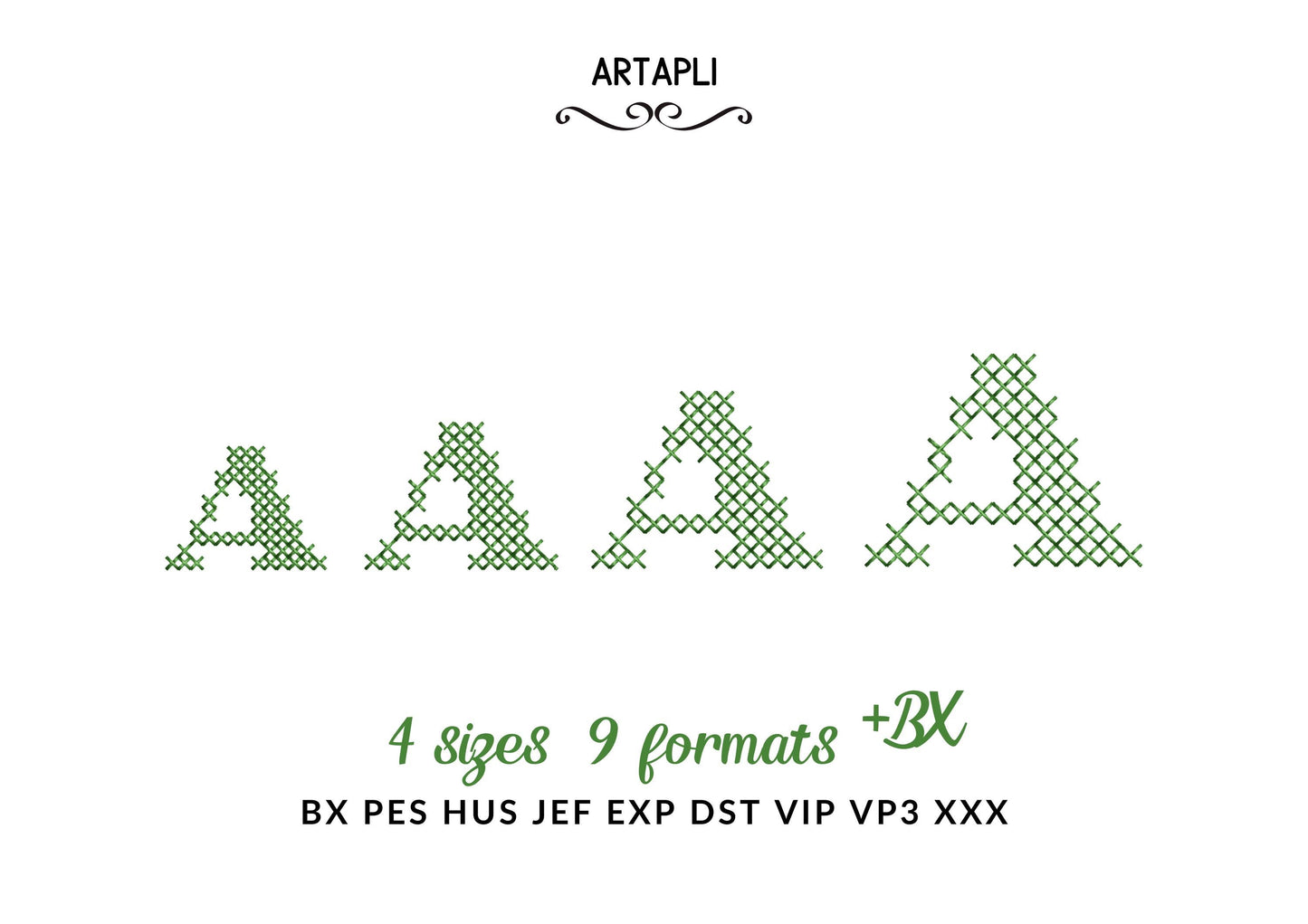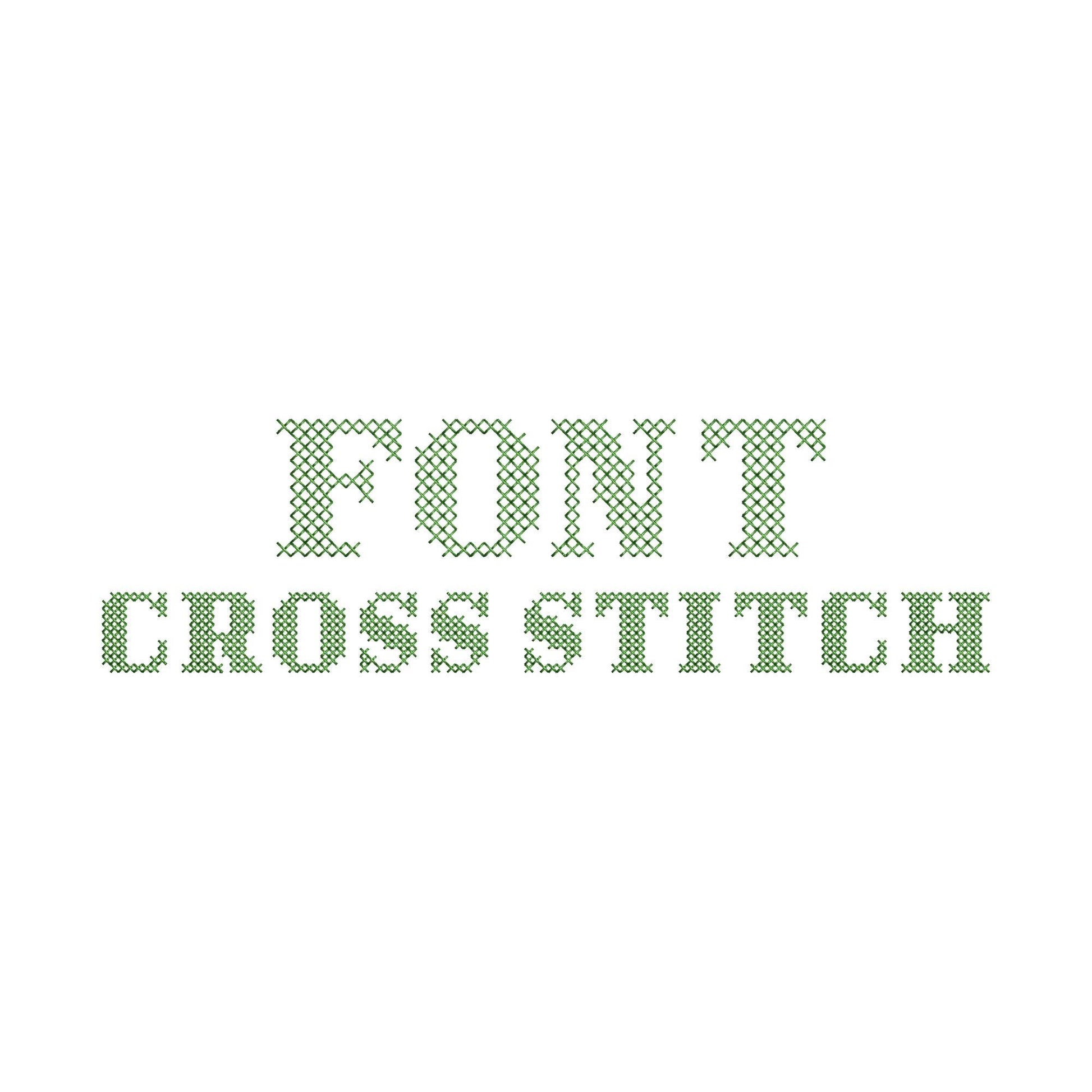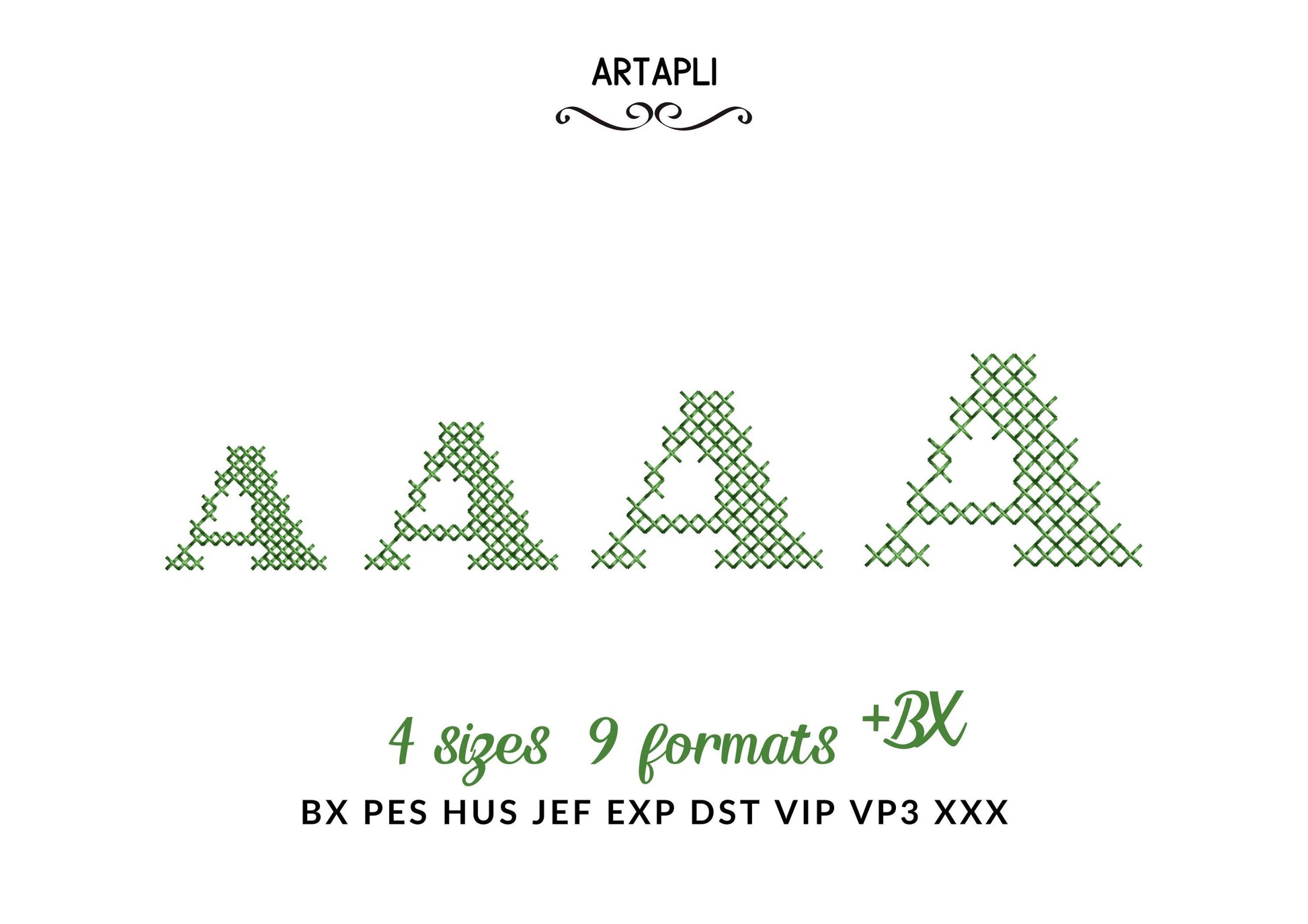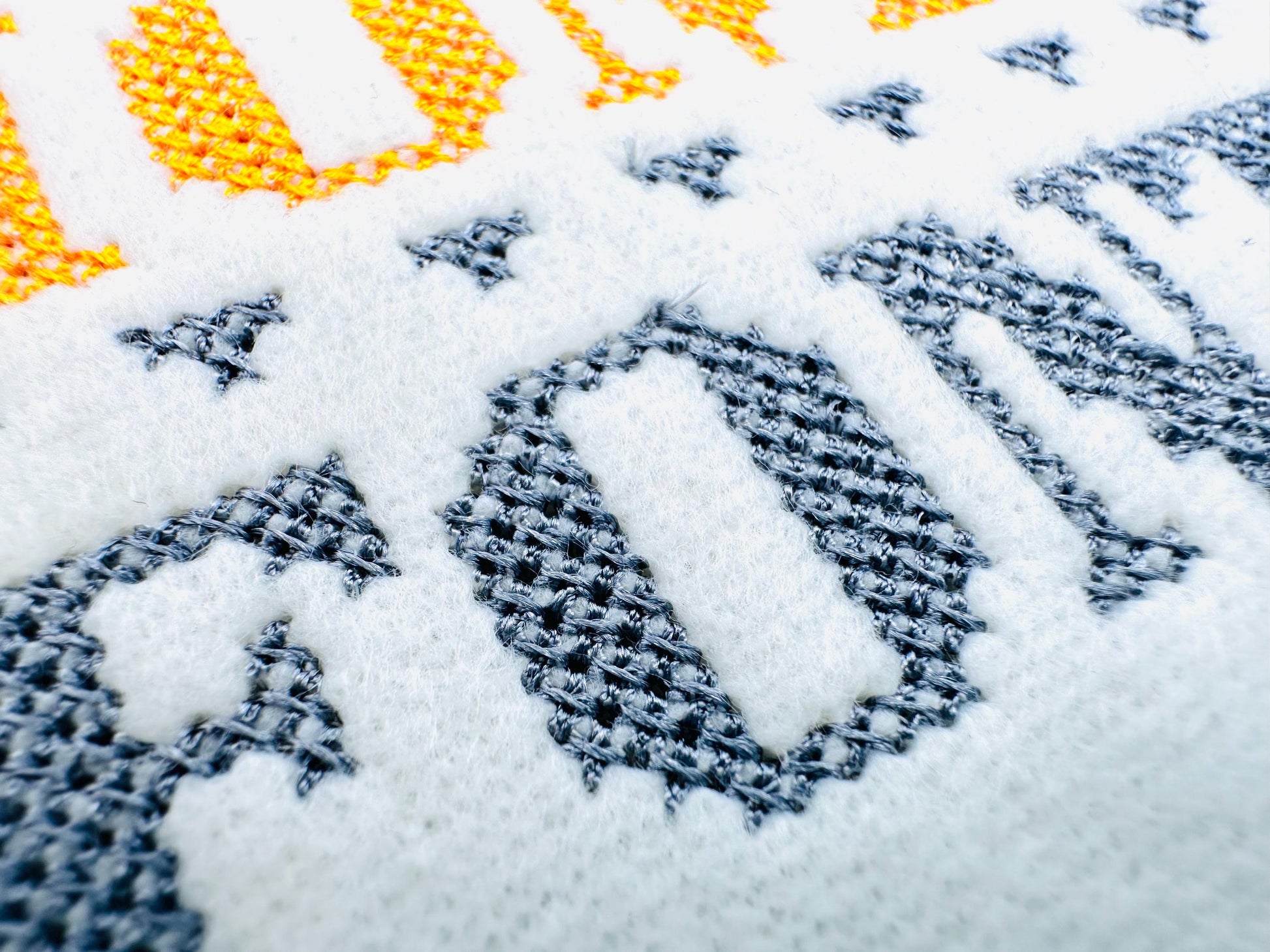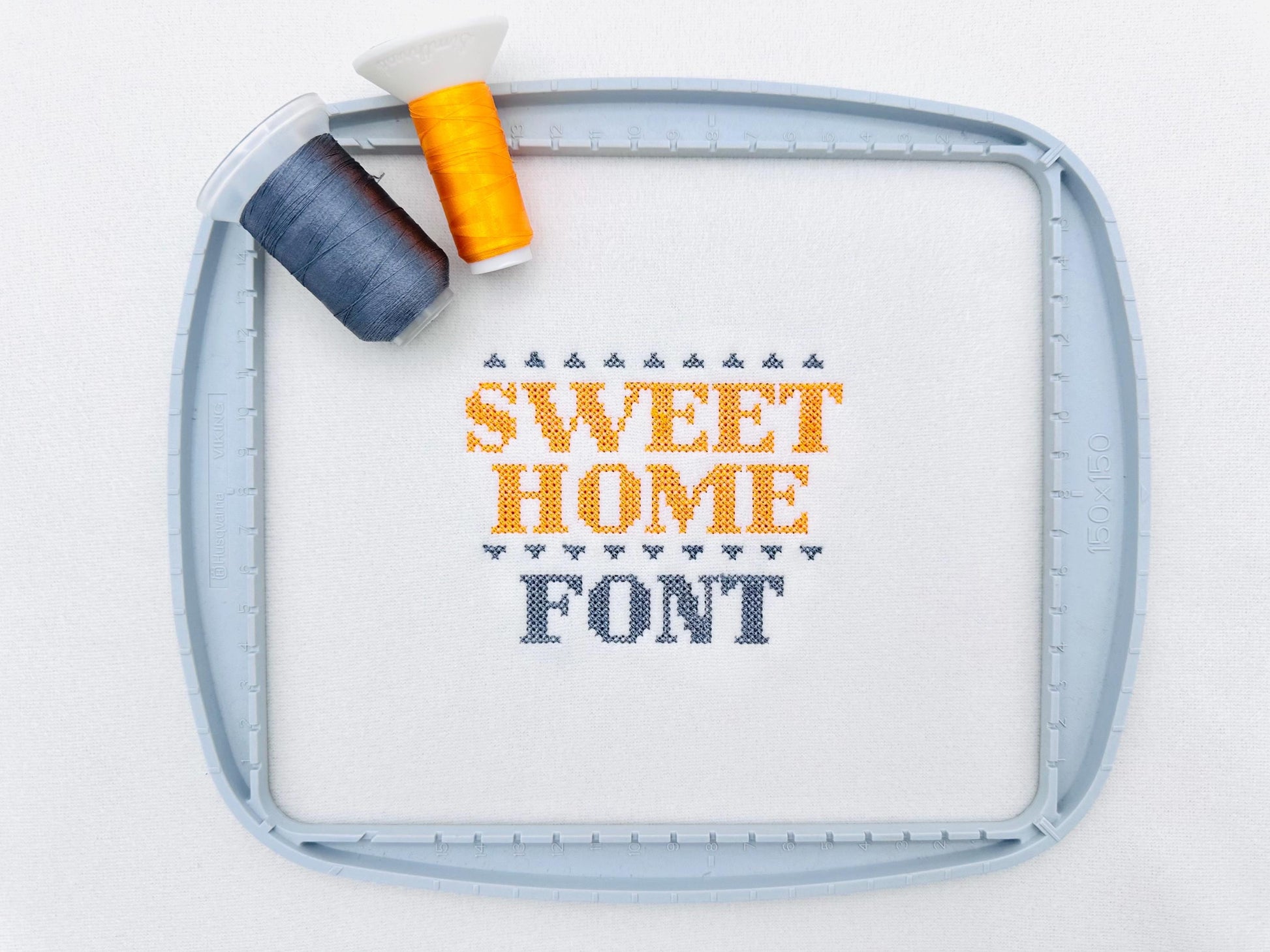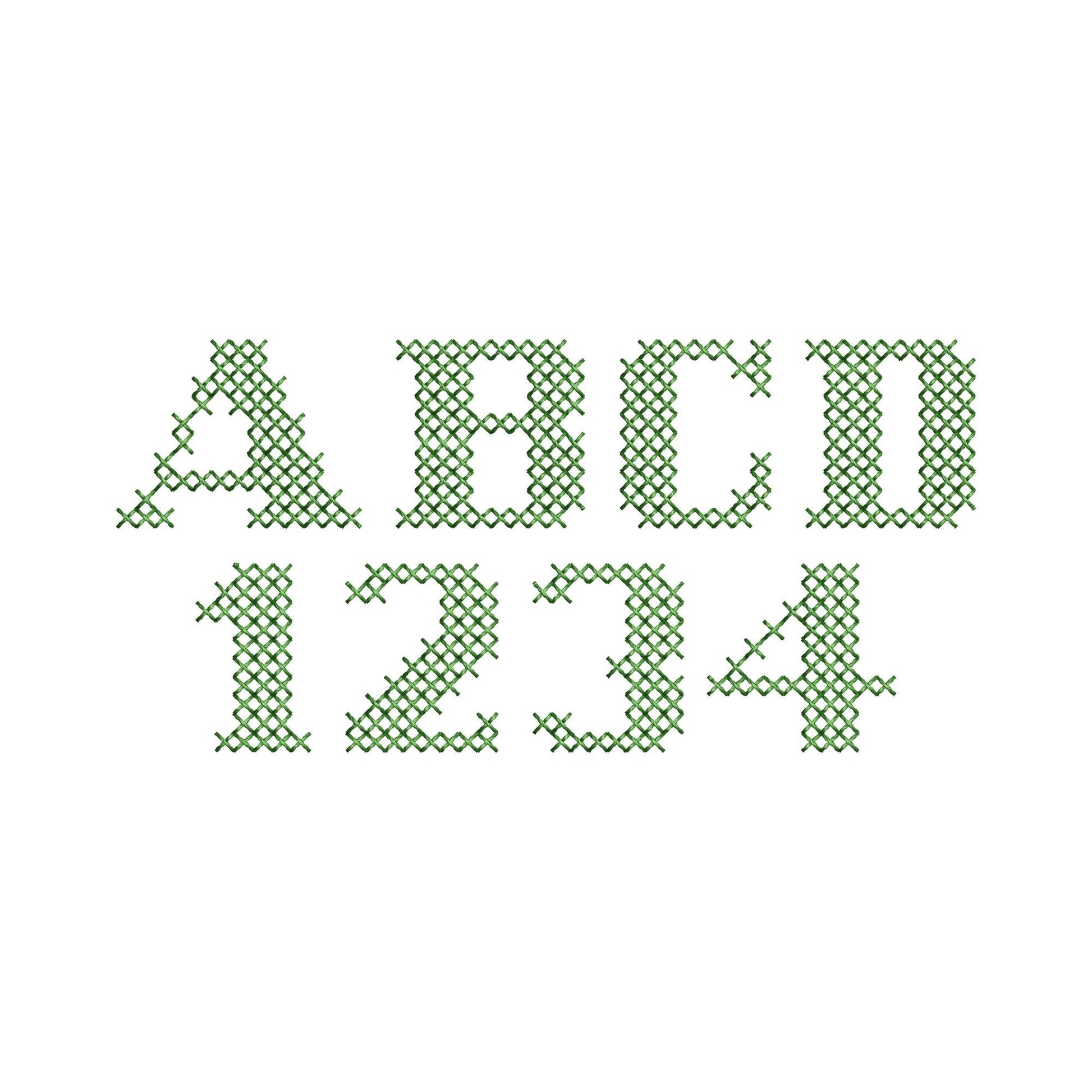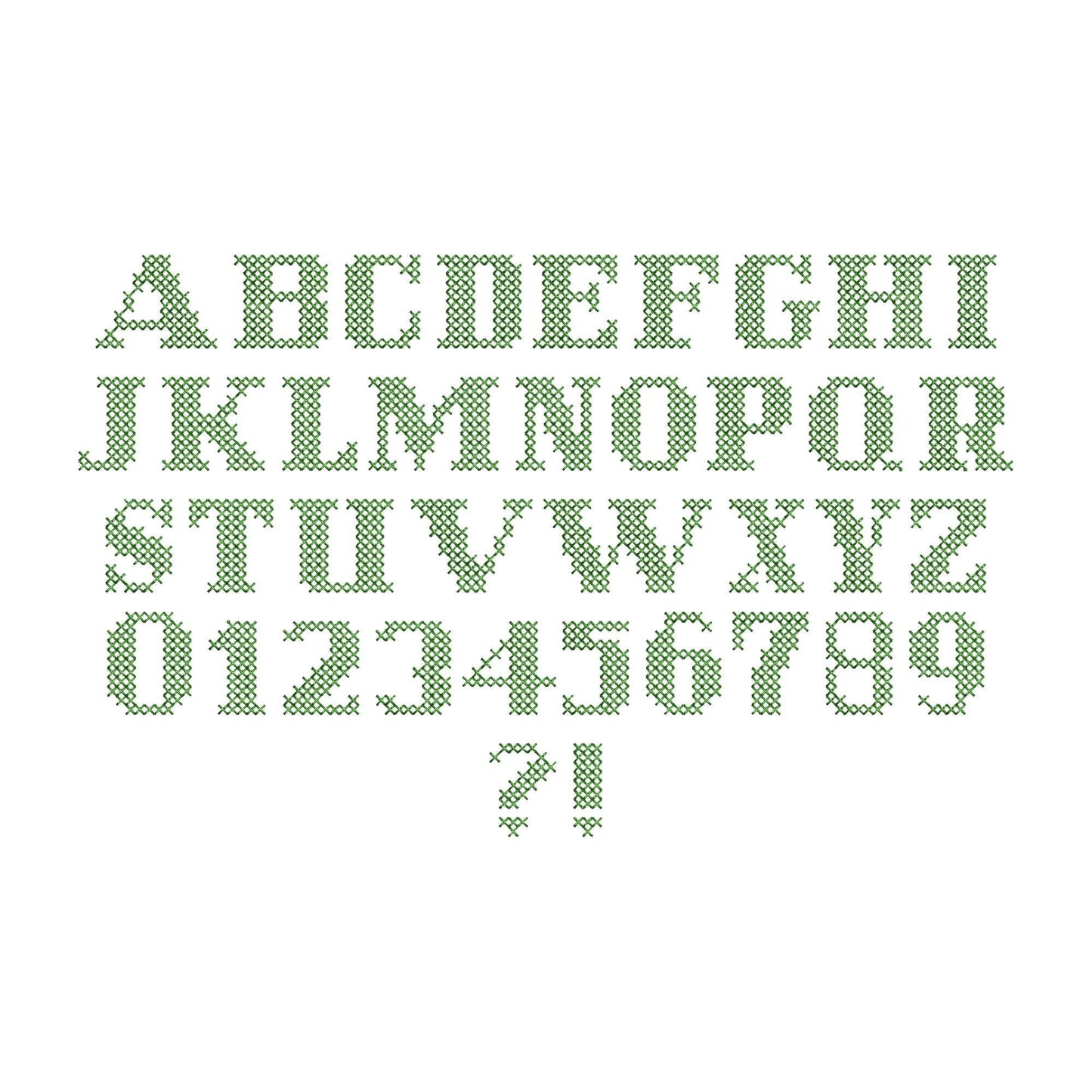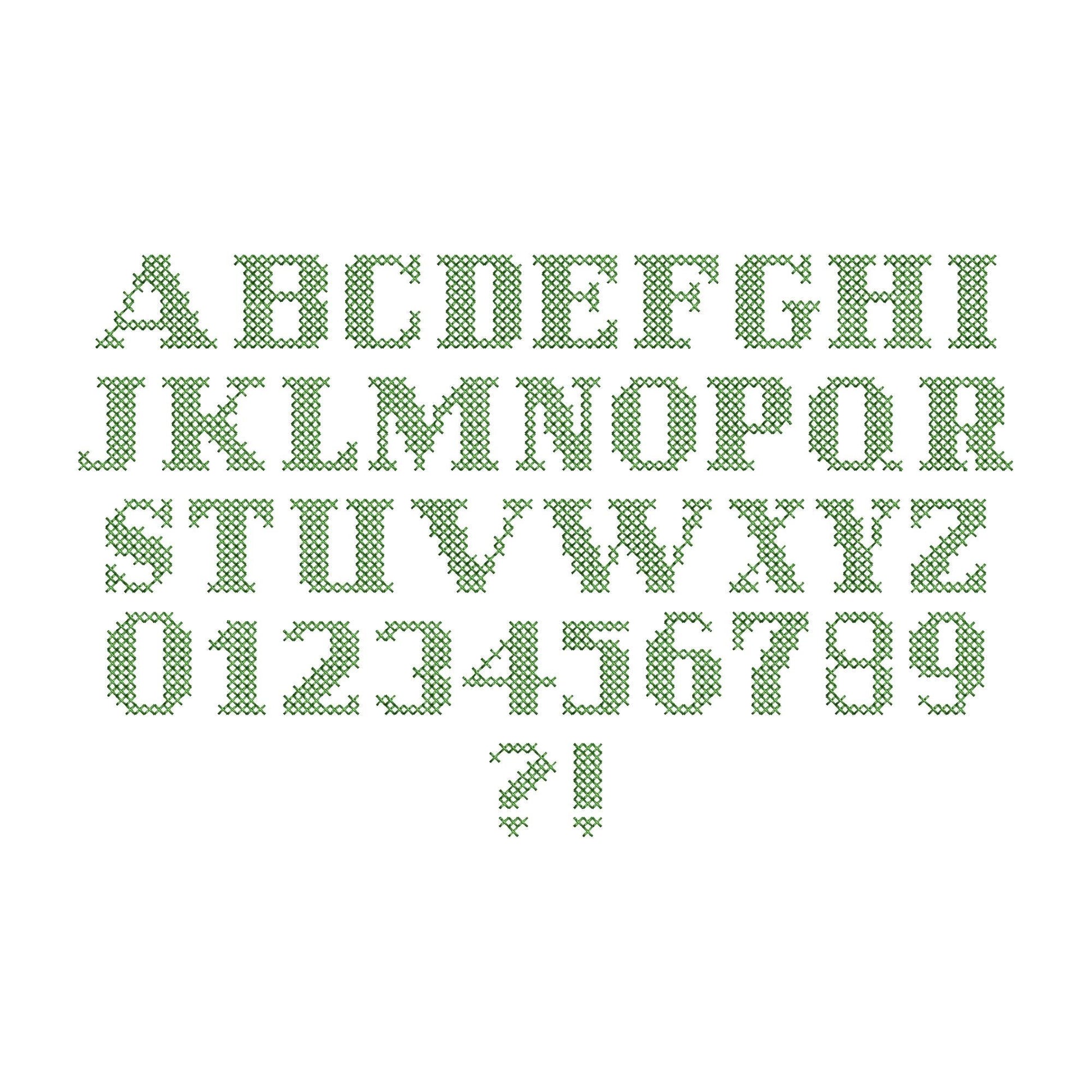
Or click to open the linkA bold cross stitch block font in tiny sizes. Charming for initials, small names and home samplers.
The letters come in four mini sizes: 0.7, 0.9, 1 and 1.2 inches. Bold block letters built from cross stitches. Includes uppercase letters A to Z, numbers 0 to 9 and the signs ! and ?